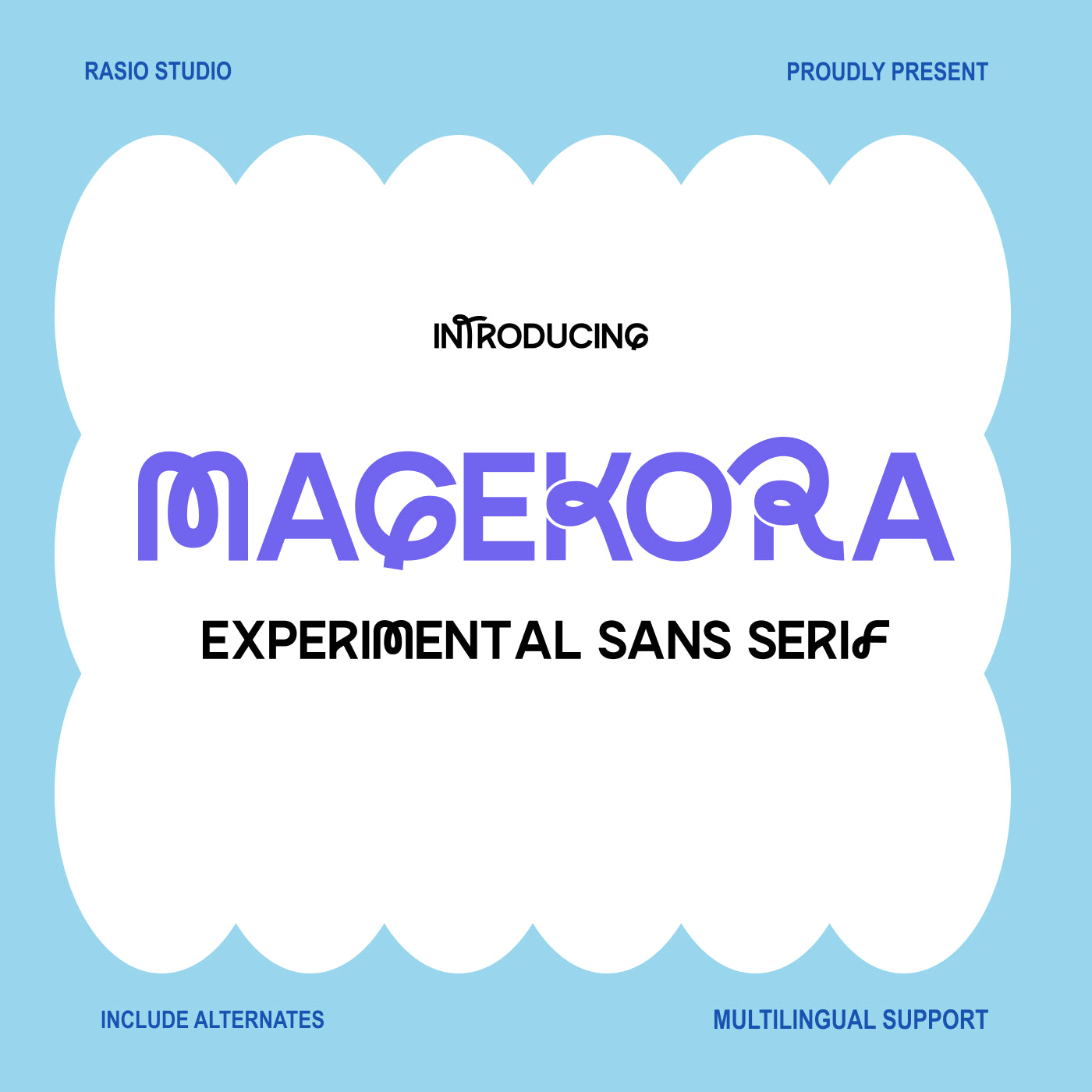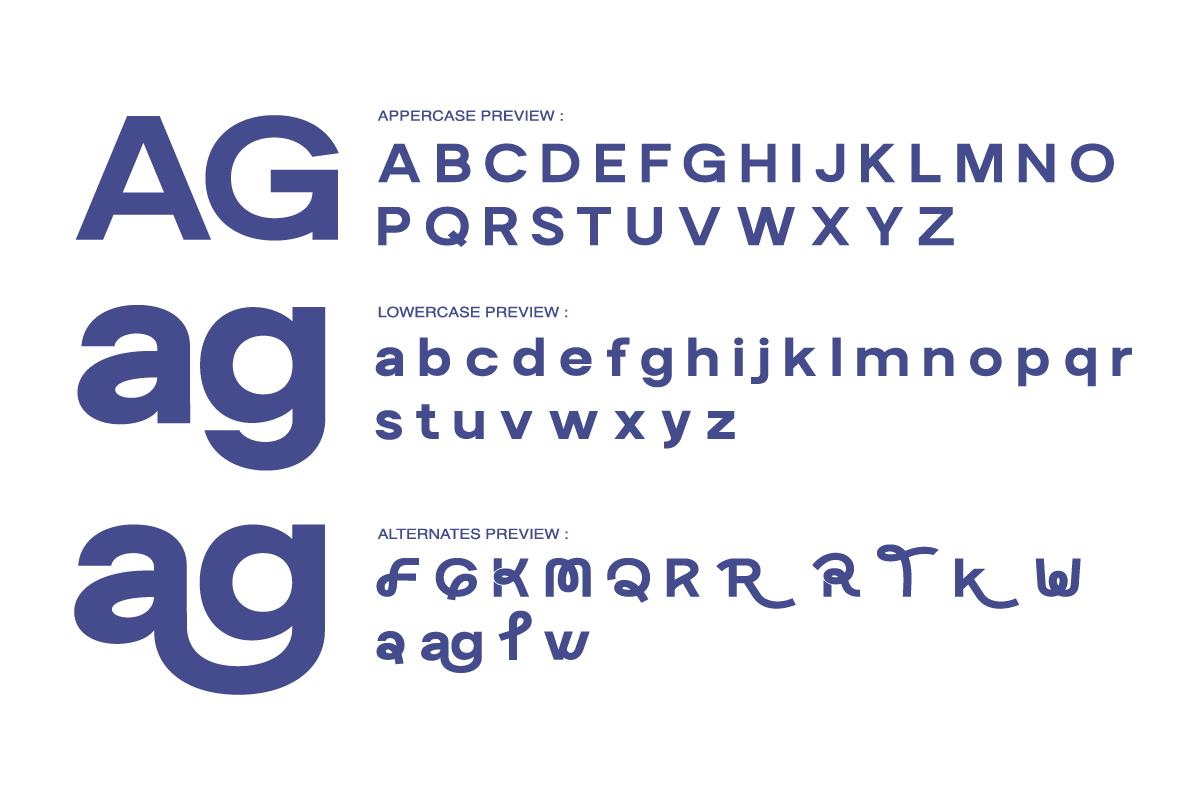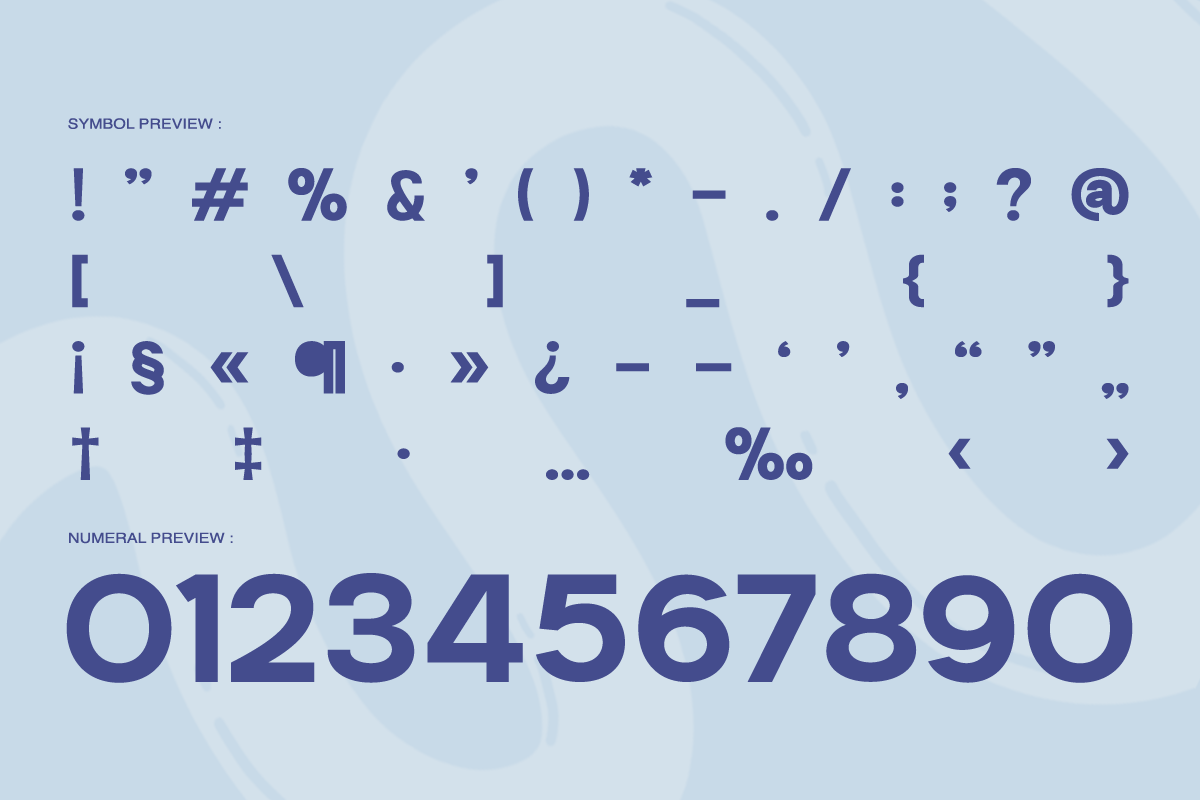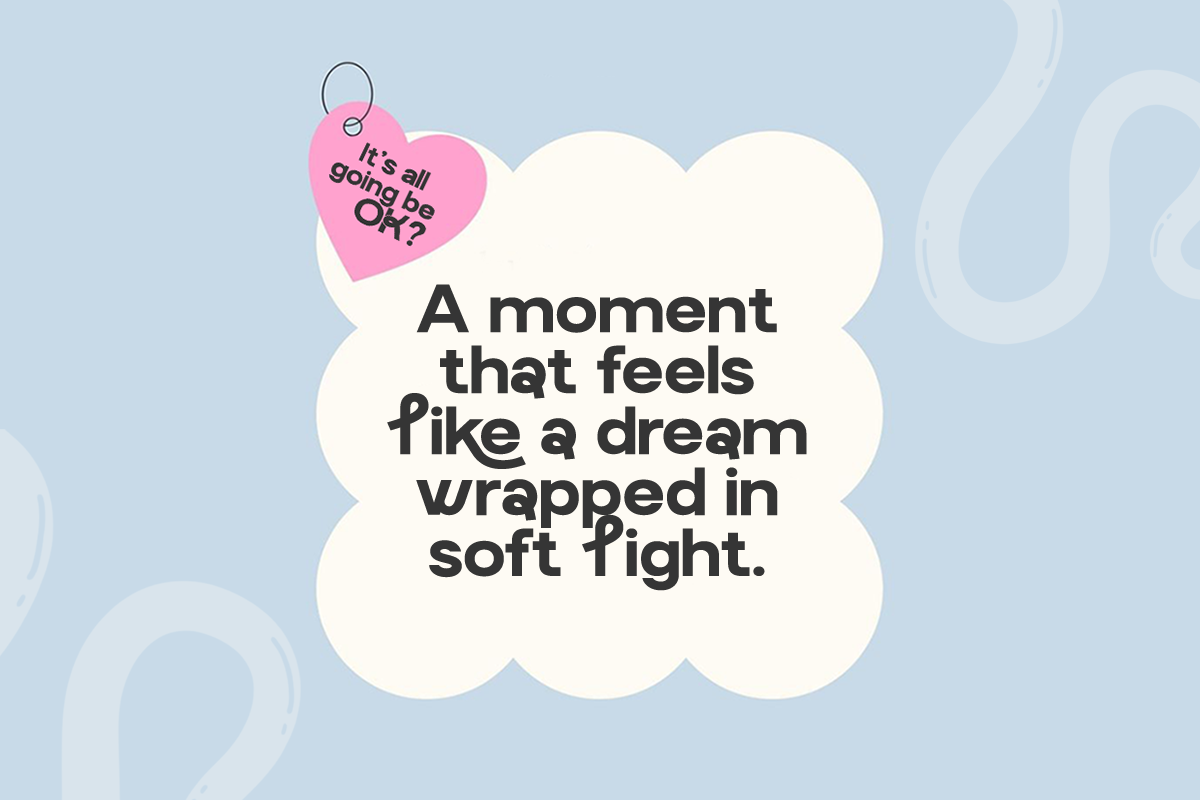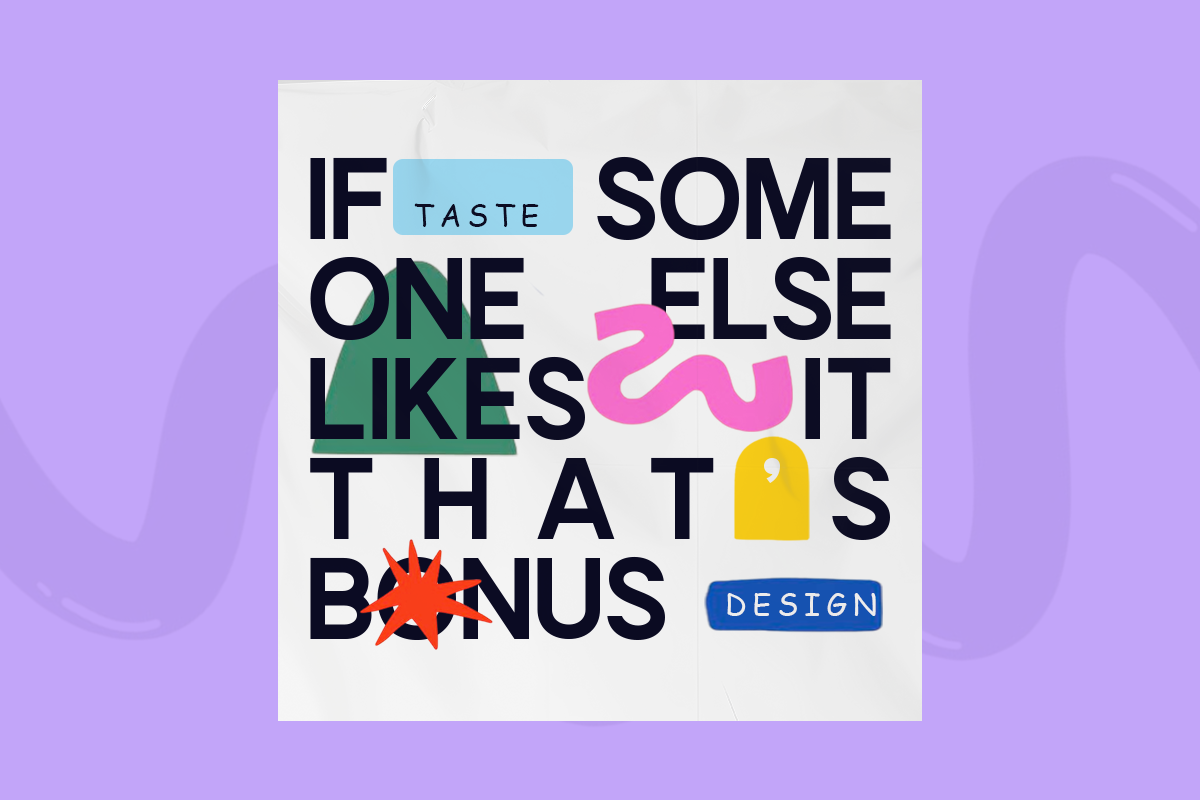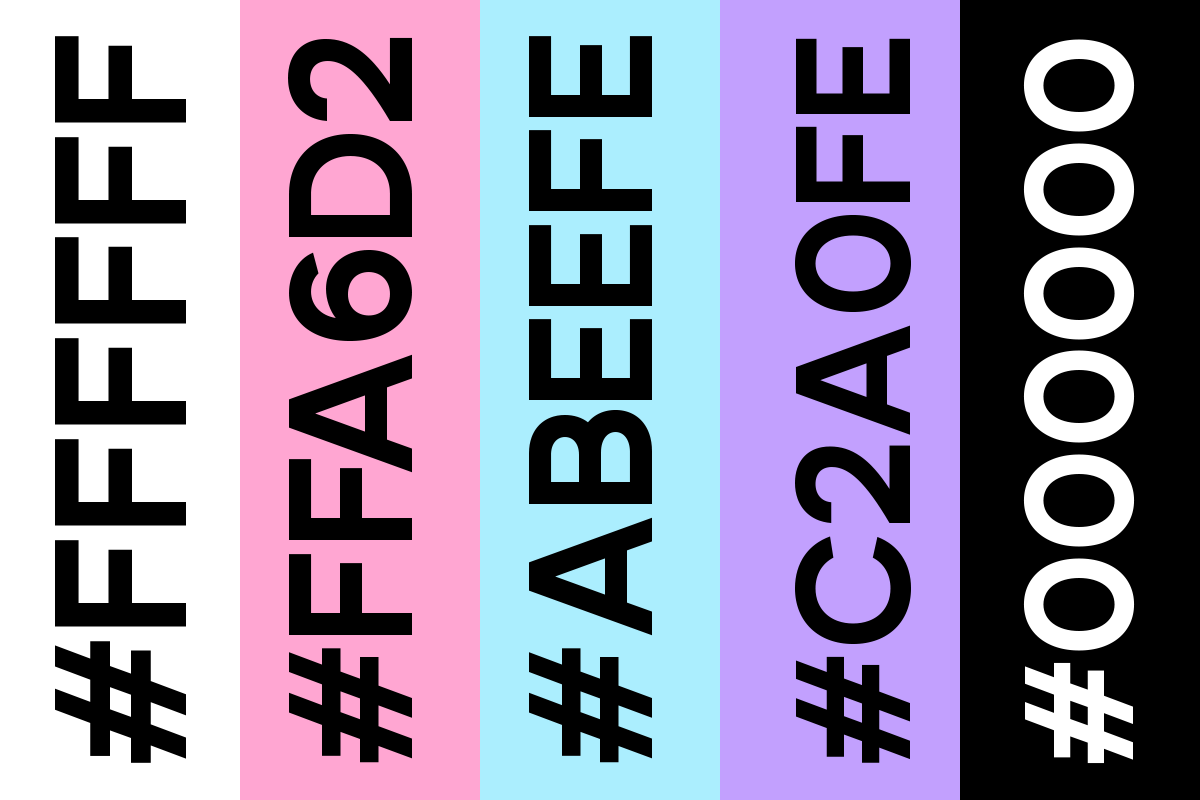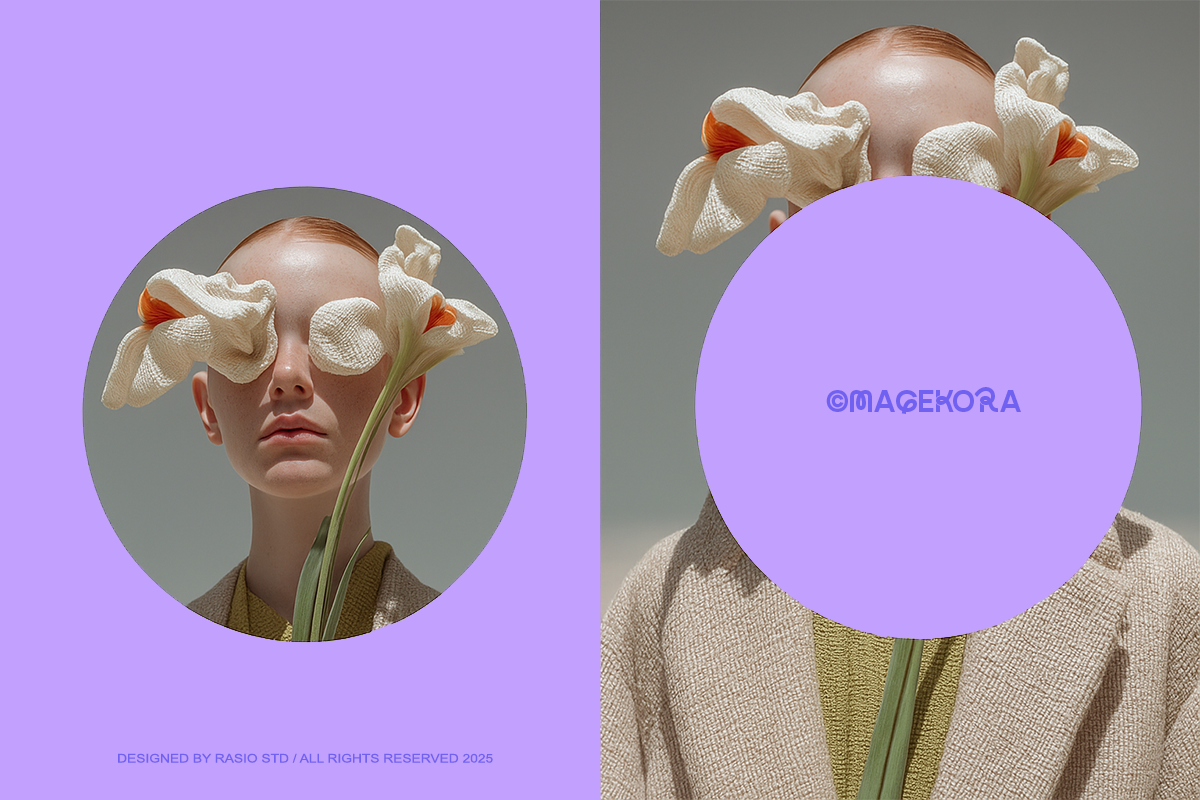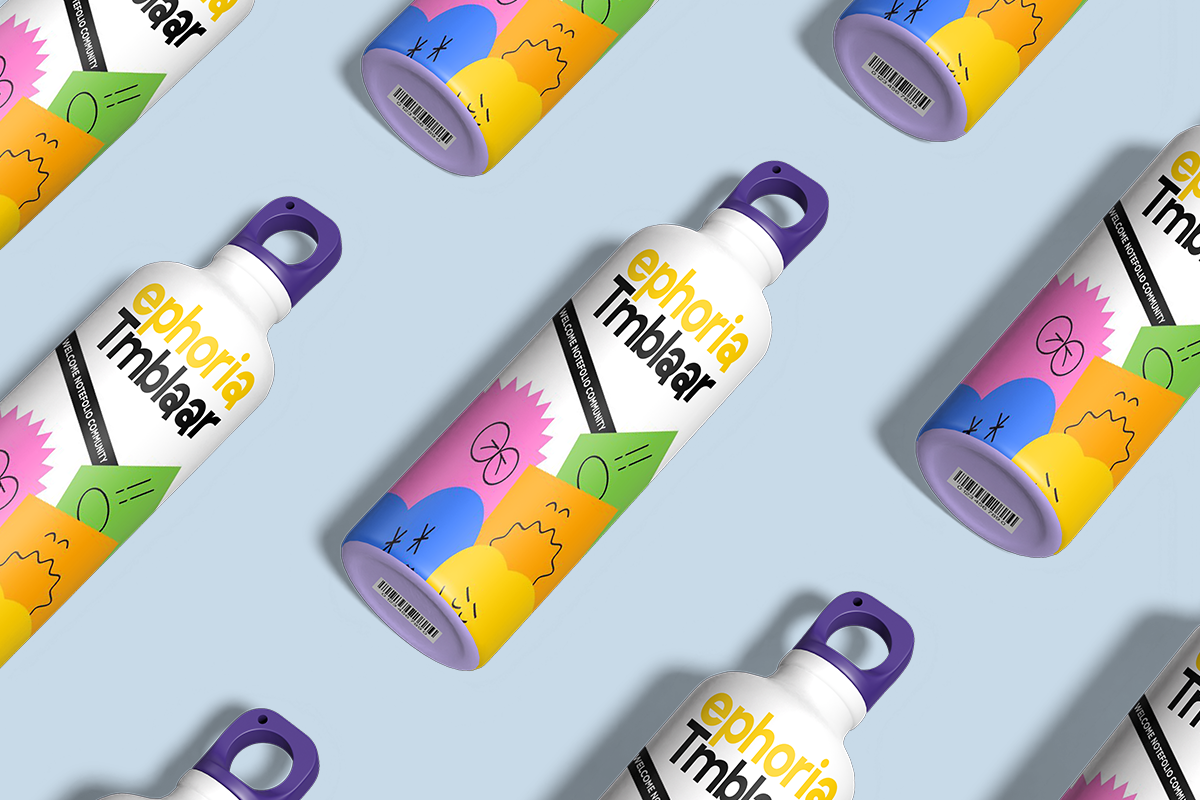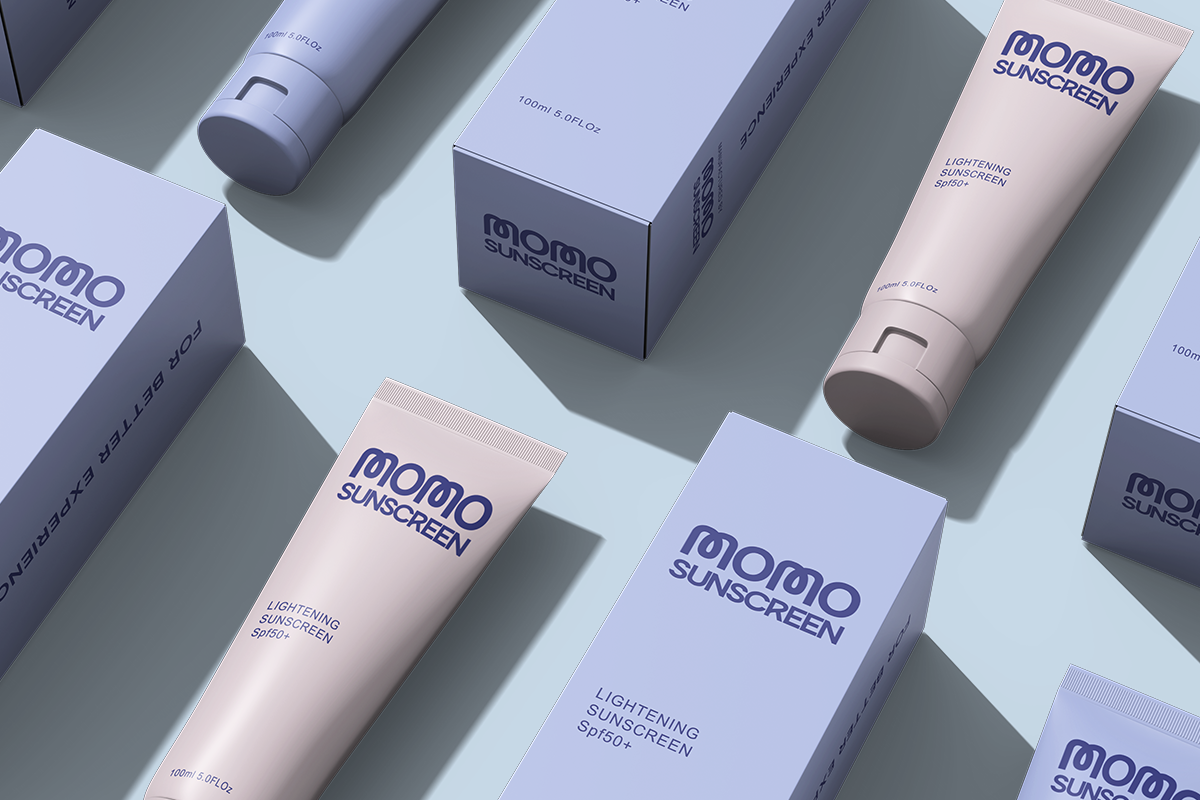
Magekora Experimental Sans Serif Font
Magekora is an experimental sans serif font that blends geometric structure with playful curves and unique alternate characters. Its innovative letter design creates a bold, futuristic tone while maintaining clarity and balance. Crafted for modern designers, Magekora combines creativity with usability perfect for visual identities that aim to stand out. This typeface offers both standard and alternate glyphs, making it adaptable for various visual styles from minimalistic layouts to vibrant digital designs. Its quirky yet functional construction makes Magekora a striking choice for experimental branding and creative editorial work.
Relevance and Use Cases is perfect for branding projects, tech startups, digital interfaces, experimental posters, and creative advertisements that explore the boundary between modernism and artistic innovation.
Numerals & Punctuation
Alternates & Special Ligatures
Magekora is an experimental sans serif font combining geometric structures with alternate characters and special ligatures, available in TTF, OTF, and WOFF formats. It includes uppercase and lowercase letters, numerals, punctuation, and multilingual support.